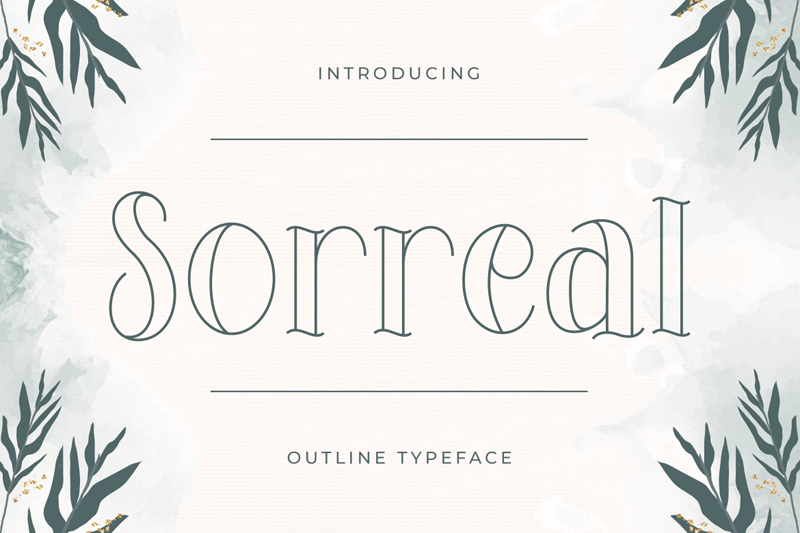
Font name: | Sorreal |
Author: | Type Factory |
Note by Type Factory | |
Sorreal is a cool, friendly and neat outlined display font. It can be used for various purposes such as logos, wedding invitations, headings, t-shirts, letterhead, signage, labels, news, posters, badges and so much more. Full Version Download Here : https://typefactory.co/product/sorreal-outline-typeface/ https://www.creativefabrica.com/product/sorreal/ref/501262/ |